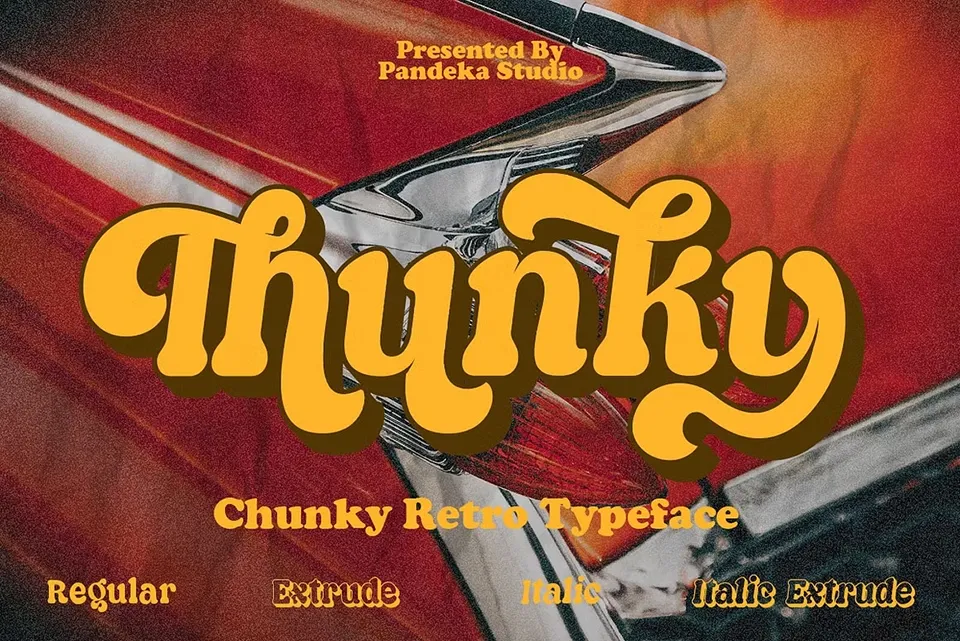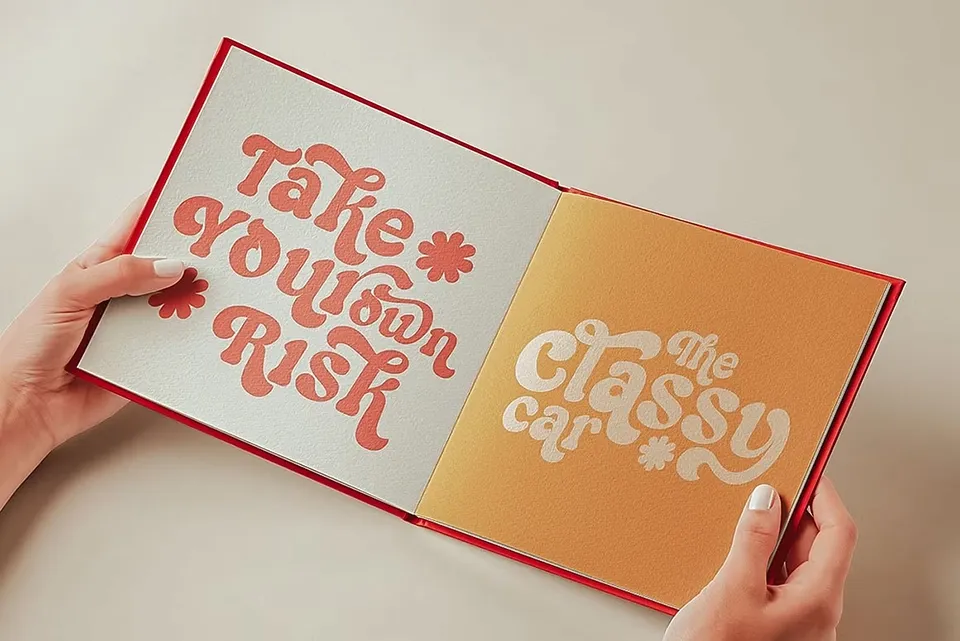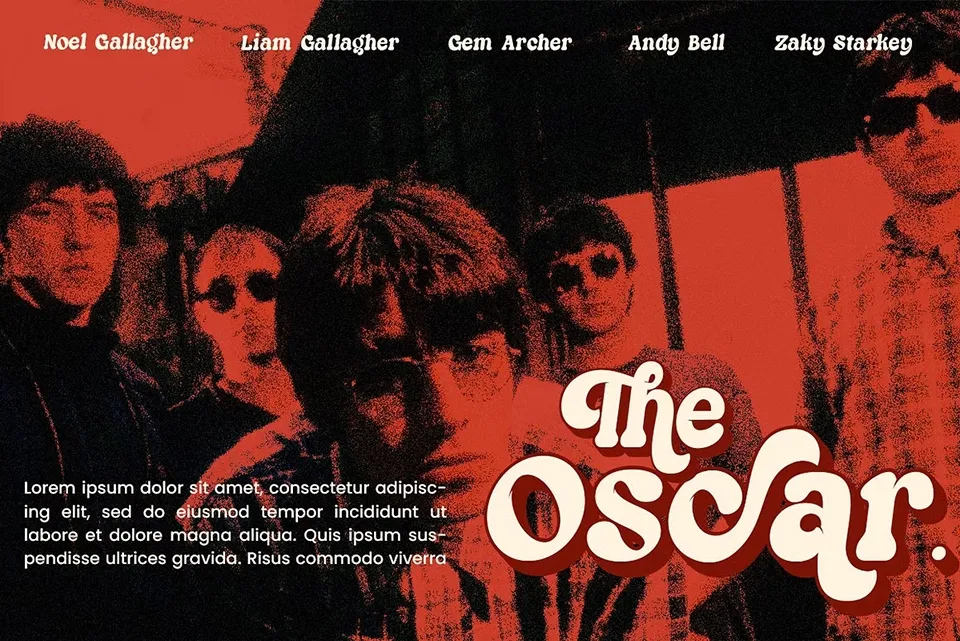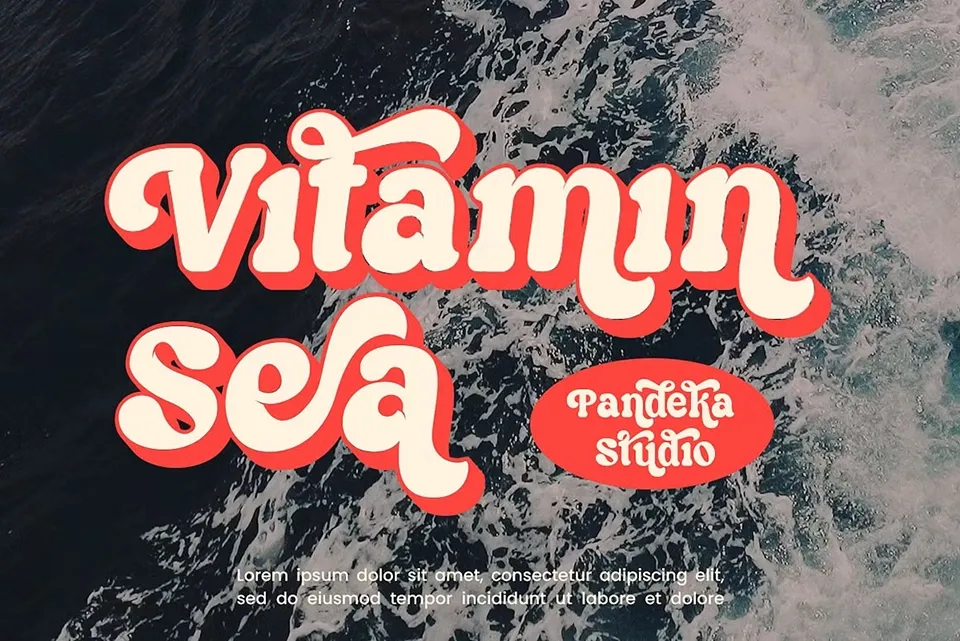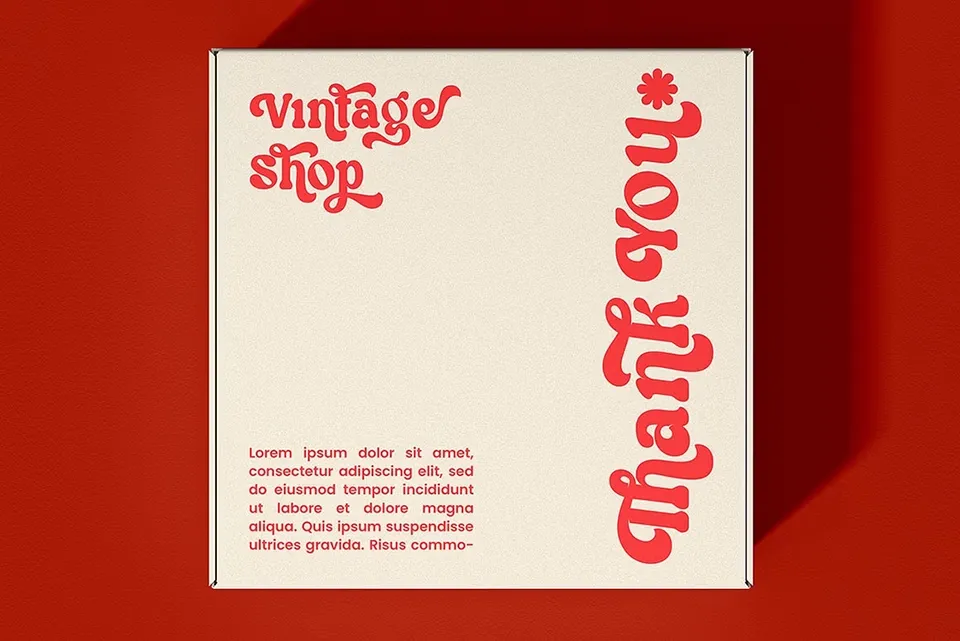
Thunky Font
Thunky Font is an homage to the expressive, soft and rounded old-style serif typefaces from the sixties and seventies. Its gentle and juicy serifs give the typeface the right amount of warmth and nostalgia. The font family includes Regular, Extrude, Italic, and Extrude Italic versions, making it perfect for adding a special retro touch to logos, print media, merchandise, and more. Thunky stands out with its Cooper-like style and several unconventional letterforms, offering dynamic options for both roman and italic styles. It supports multiple languages and is fully accessible in popular design software, thanks to its PUA encoded characters.